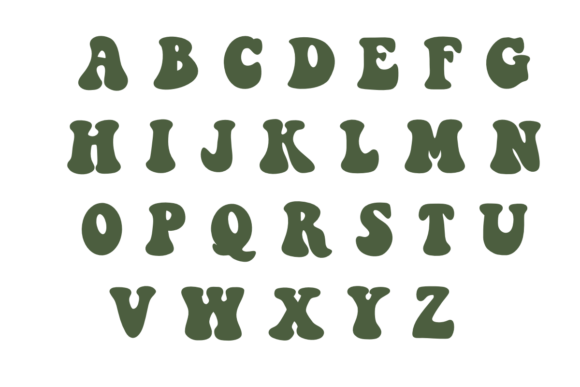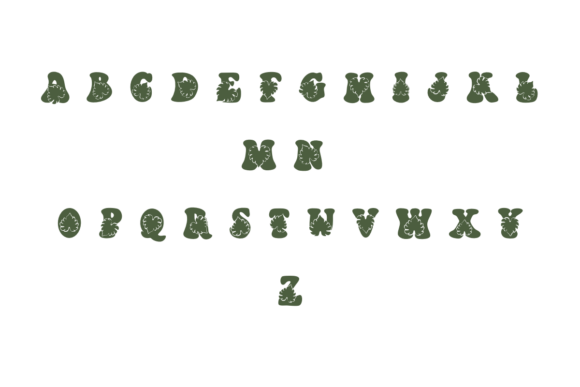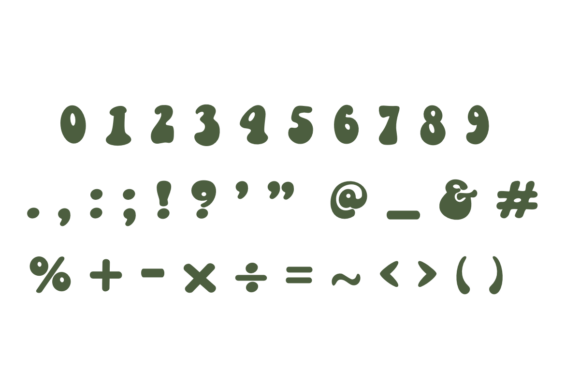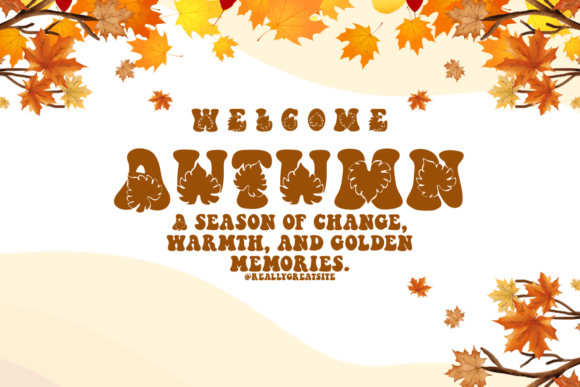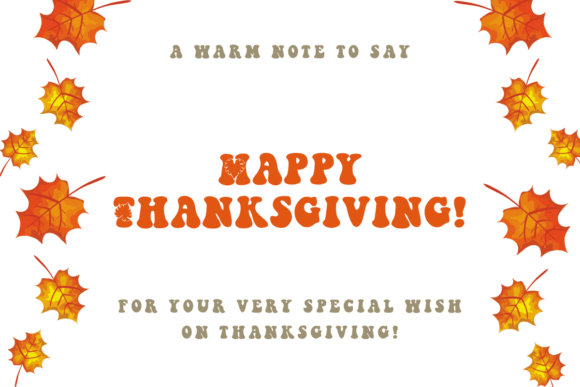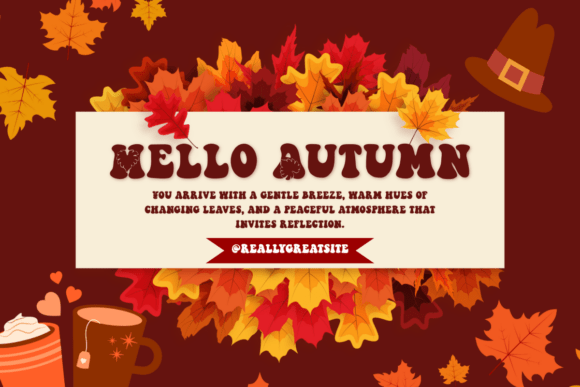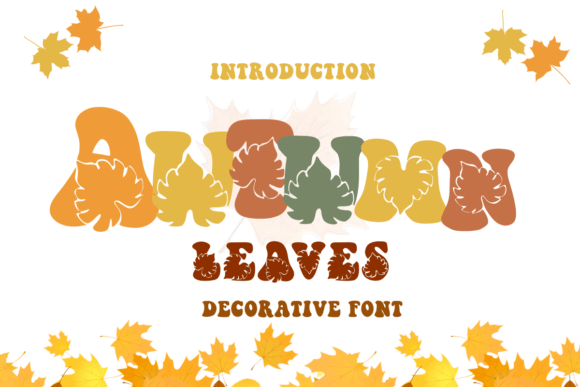
The Magic of Autumn Leaves Font: A Designer’s Delight
I still remember the crisp autumn afternoon when I was working on a Thanksgiving invitation project for a client. I had all the elements ready – the warm color palette, the cozy graphics, and the perfect layout. But something was missing. That’s when I stumbled upon the Autumn Leaves Font , and it was love at first sight! ✨ The whimsical and playful design of this font brought the charm of fall to life, and I knew I had found the perfect fit for my project.
• ✨ Unique and creative leaf motifs for each letter, making it perfect for autumn-themed designs
• ✅ Warm and organic vibe that adds a touch of nature to every design
• ✅ Easy to read and understand, despite its decorative style
• ✅ Great for a variety of design projects, from invitations to posters and crafts
While I absolutely adore the Autumn Leaves Font, there are a few things to keep in mind: 🤔
• ⚠️ Some letters may be a bit more stylized than others, which can make them harder to read in certain contexts
• ⚠️ Limited availability of stylistic alternates, which may limit design flexibility
The Story Behind Autumn Leaves Font
The Autumn Leaves Font was designed by a talented type designer who wanted to capture the magic of the fall season. Inspired by the changing leaves and cozy atmosphere of autumn, the designer created a font that would bring a touch of nature to every design. With its unique and creative leaf motifs, the Autumn Leaves Font has become a favorite among designers and crafters alike.
Q: What type of designs is Autumn Leaves Font best suited for?
A: Autumn Leaves Font is perfect for autumn-themed designs, such as Thanksgiving invitations, fall posters, and harvest festival branding.
Q: Is Autumn Leaves Font easy to read?
A: While Autumn Leaves Font is a decorative font, it’s still relatively easy to read. However, some letters may be more stylized than others, which can make them harder to read in certain contexts.